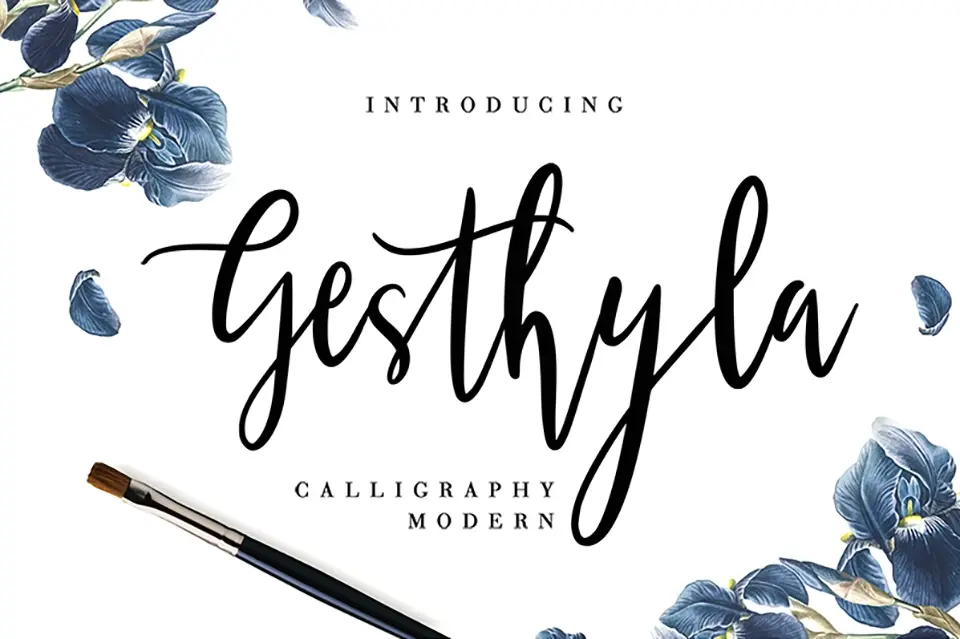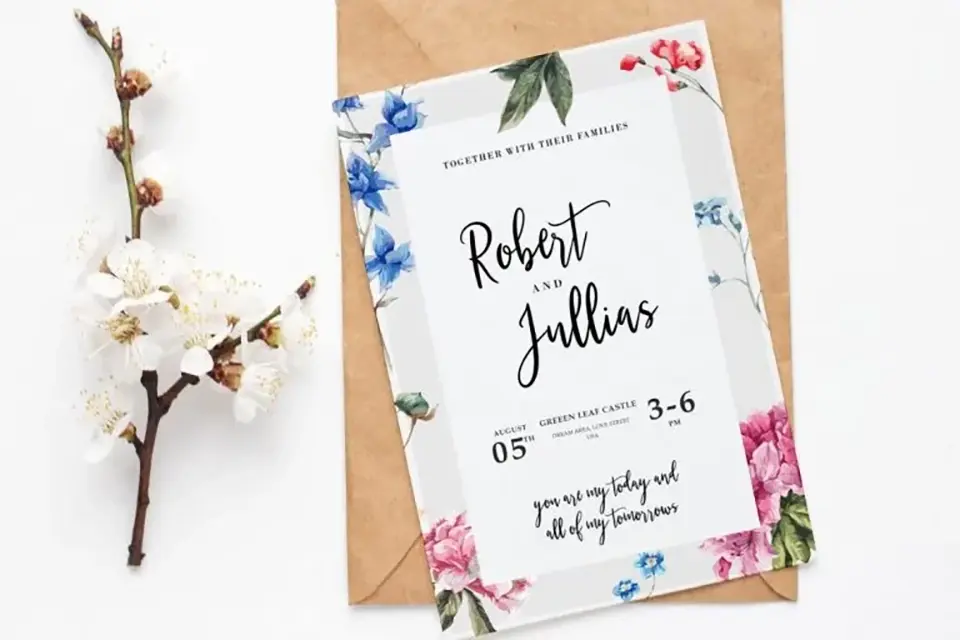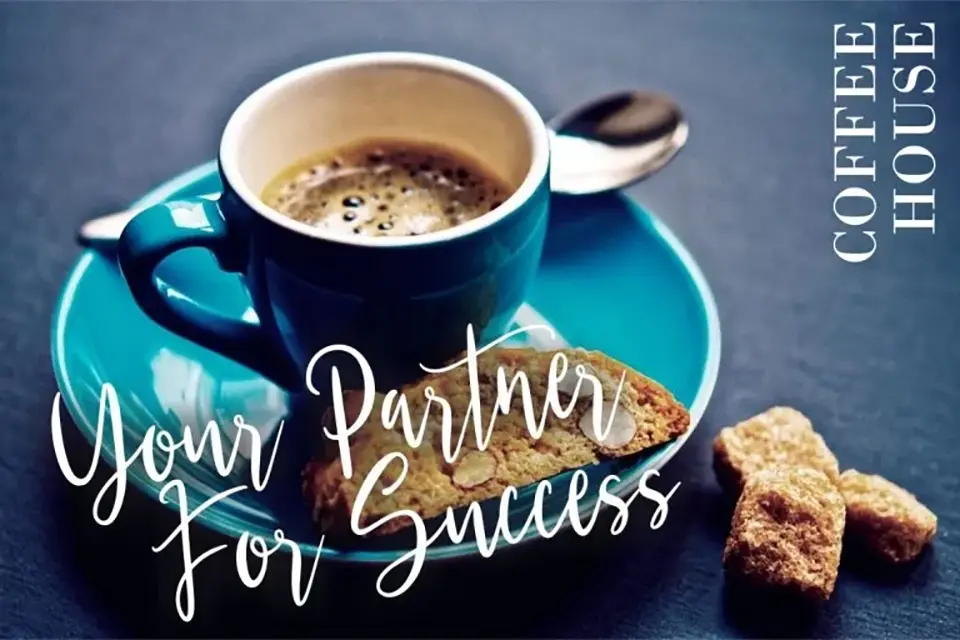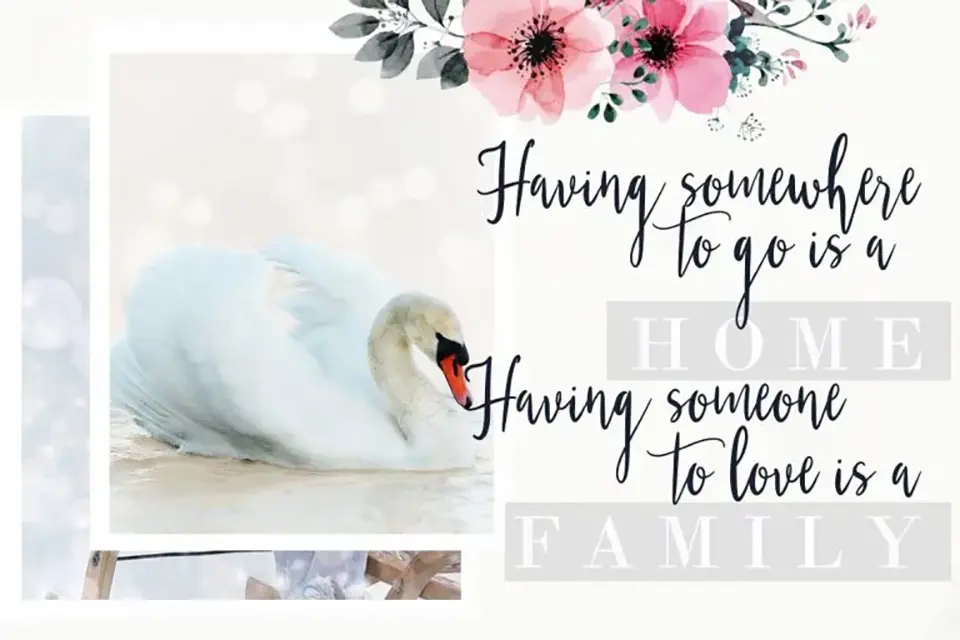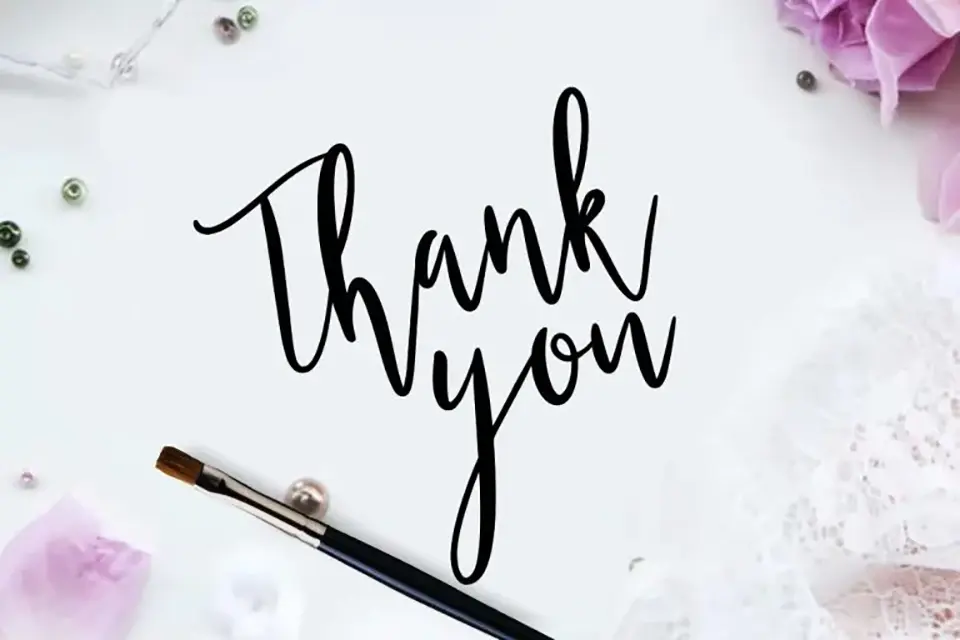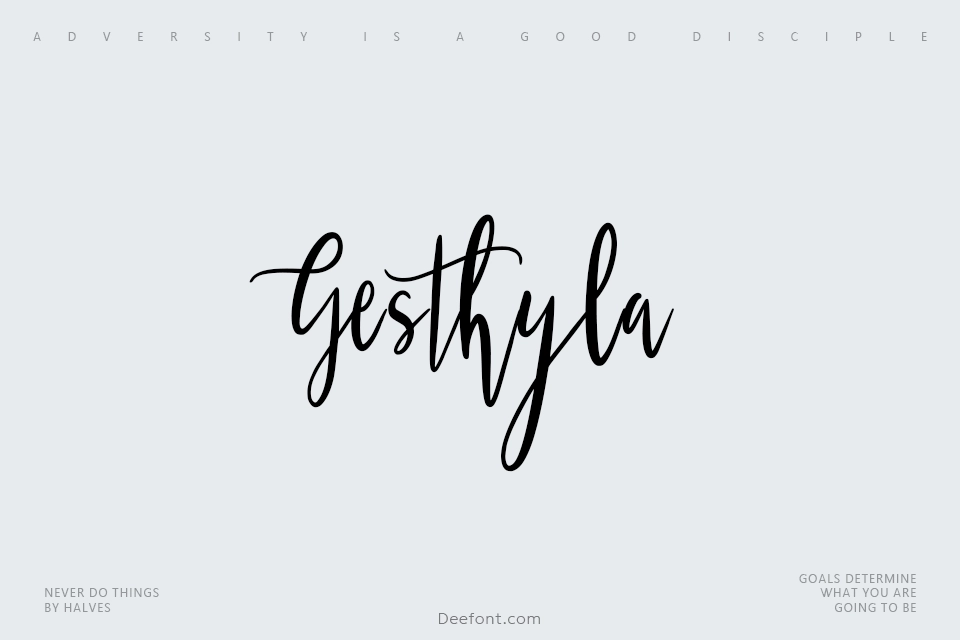
Gesthyla Font
Gesthyla is an elegant and flowing script calligraphy font featuring dynamic curves and graceful strokes. This handwritten modern calligraphy typeface combines sophistication with approachability, making it ideal for branding, wedding designs, greeting cards, and elegant packaging projects. The font maintains consistent fluidity across uppercase and lowercase letters while special characters are crafted with meticulous attention to detail.